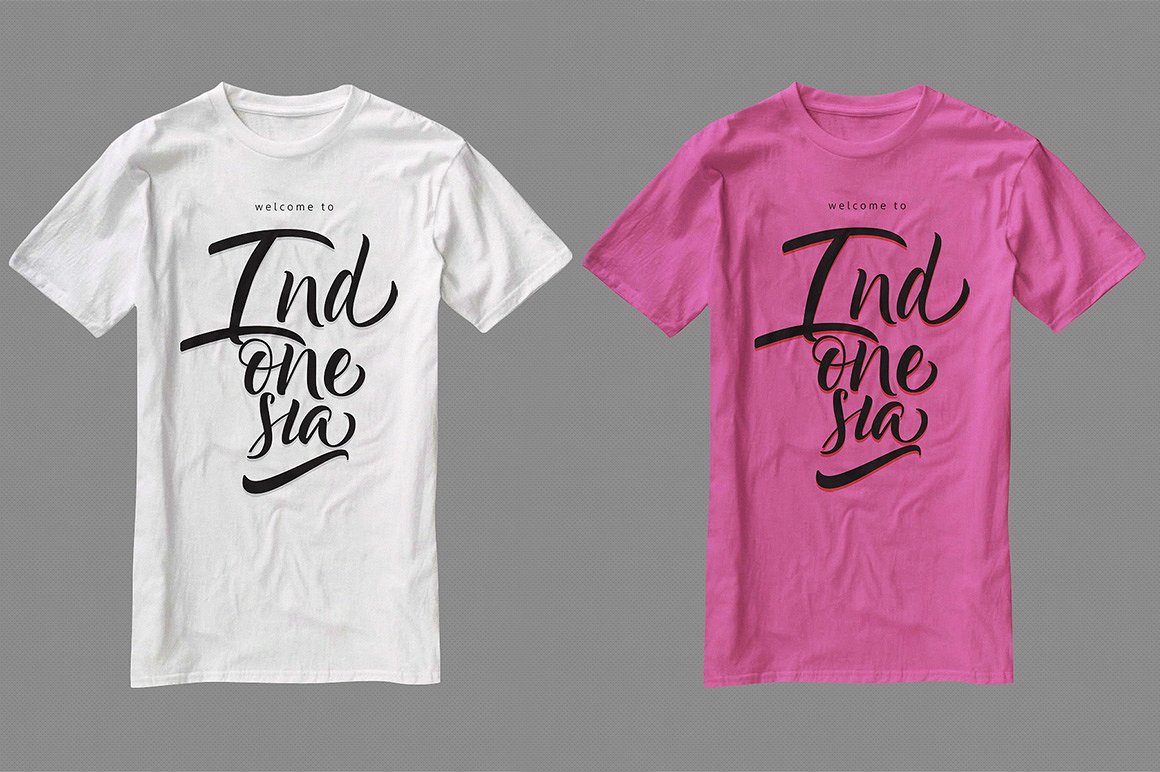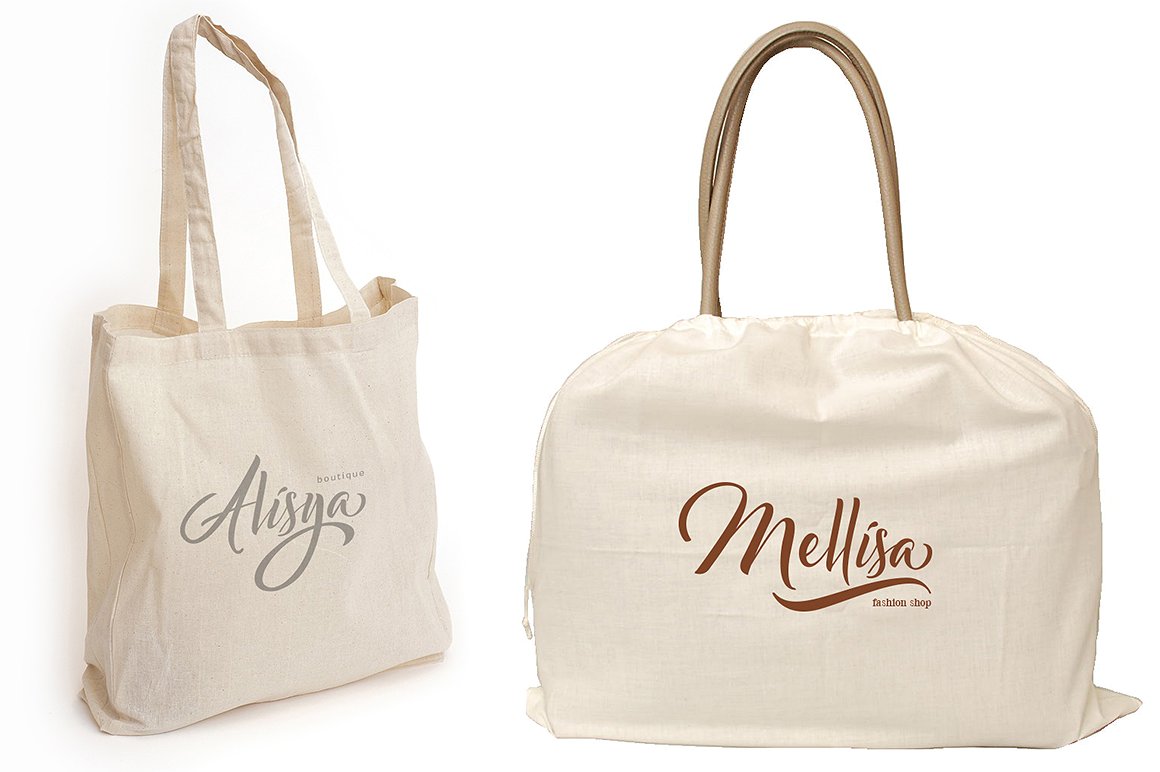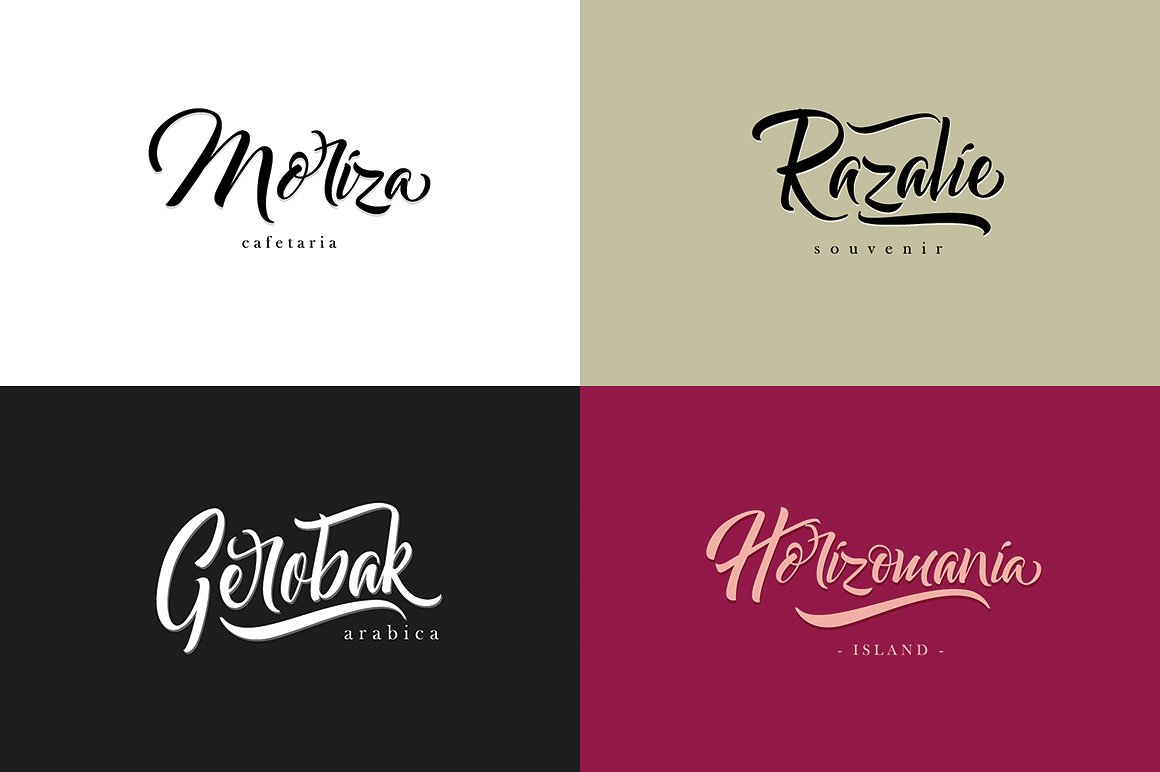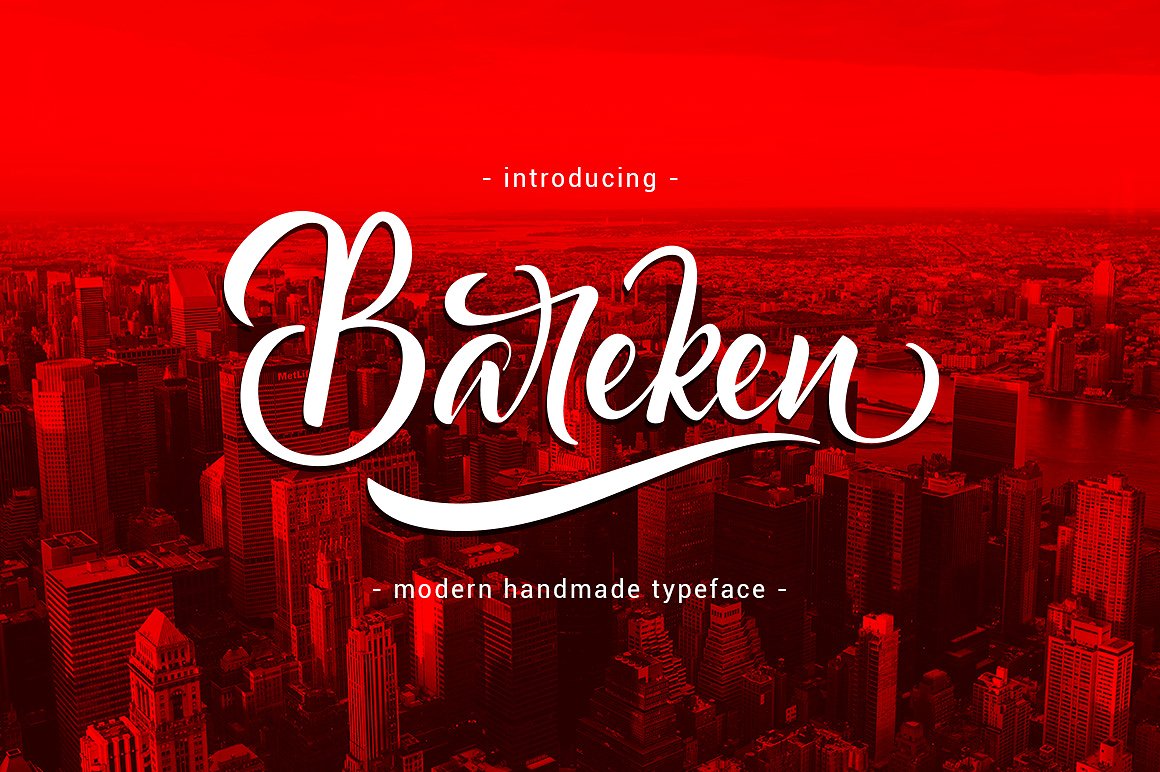
Bareken Script Font
Hello world..!! A fashionable and super-chilled new handwriting font script with some sexy stylish extras. Introducing Bareken Font! Bareken typeface, simple and easy to create awesome lettering, just type your words and then you will immediately see the great results. Comes with upper and lowercase characters, large set of punctuation glyphs, numerals, and supports international languages. Stylistic alternates for several key lower case characters are also available, accessible in the Adobe Illustrator Glyphs panel.